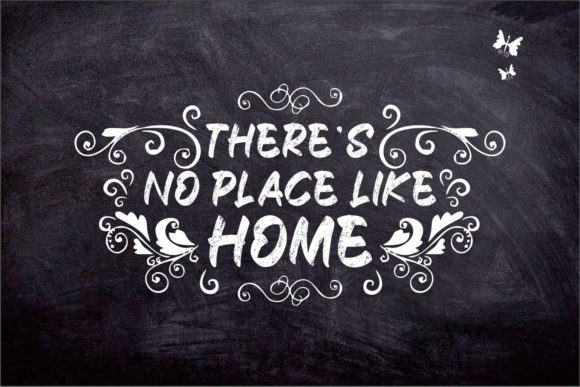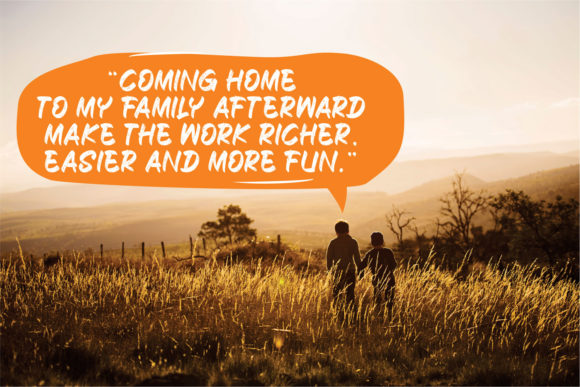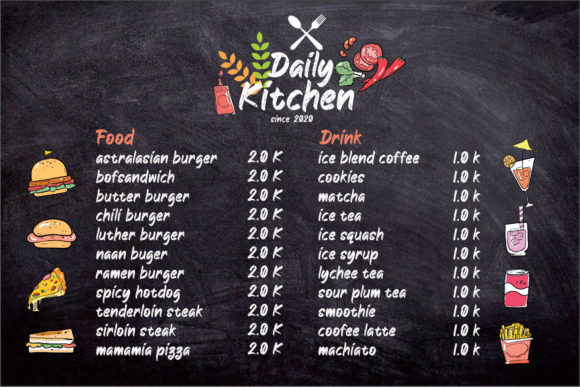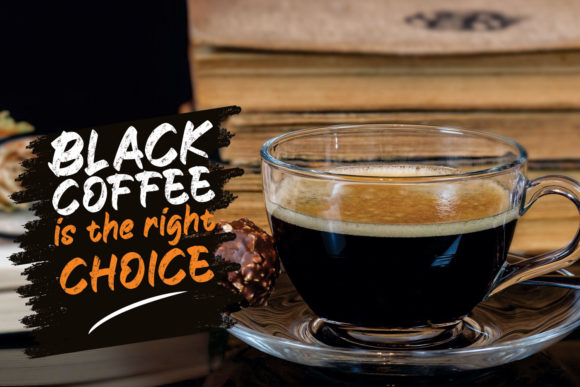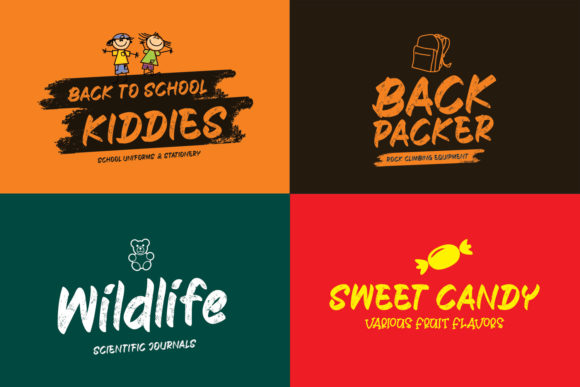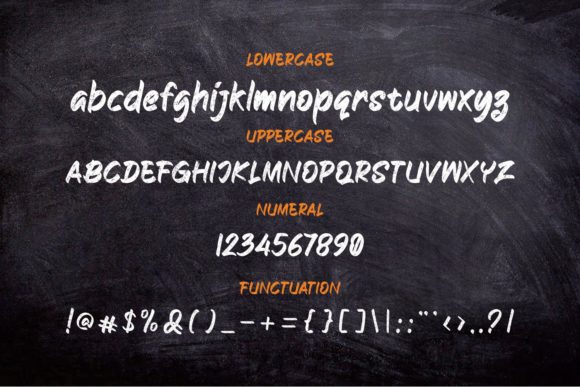
Discover the Timeless Charm of Blackboard Font: Elevate Your Designs with a Classic Handwritten Style
Are you a designer or crafter looking for a font that can add a touch of nostalgia and personality to your projects? Look no further than the Blackboard font! This classic handwritten font has been a staple in the design world for years, and its versatility and charm make it an excellent choice for a wide range of applications.
The Unique Characteristics of Blackboard Font
Blackboard font is a typeface that mimics the look of handwritten text on a blackboard. Its distinctive features include:
- Handwritten style: Blackboard font has a warm, organic feel that is reminiscent of handwritten text.
- Chalk-like texture: The font has a subtle texture that gives it a chalky appearance, as if it was written on a blackboard.
- Classic look: Blackboard font has a timeless quality that makes it suitable for a wide range of projects, from vintage-inspired designs to modern applications.
Why Blackboard Font is a Great Choice for Designers and Crafters
Blackboard font is an excellent choice for designers and crafters due to its versatility and legibility. Here are some reasons why:
- Legibility: Despite its handwritten nature, Blackboard font is surprisingly legible, making it suitable for use in a variety of contexts, from body text to headlines.
- Versatility: Blackboard font can be used in a wide range of projects, including posters, flyers, brochures, and digital graphics.
- Emotional connection: The font’s handwritten style and chalk-like texture evoke a sense of nostalgia and warmth, making it an excellent choice for designs that aim to create an emotional connection with the audience.
How to Use Blackboard Font Effectively in Your Designs
Blackboard font can be used in a variety of ways to add visual interest and personality to your designs. Here are some tips:
- Use it as a headline: Blackboard font makes an excellent headline font, especially when used on busy backgrounds or as a standalone element.
- Combine it with images: The font’s chalk-like texture and handwritten style make it an excellent choice for use in combination with images, especially those with a vintage or rustic feel.
- Experiment with colors: Blackboard font can be used in a variety of colors, from classic black and white to bold and bright hues.
Blackboard Font in Digital and Print Design
Blackboard font is a versatile typeface that can be used in both digital and print design. Here are some examples of how it can be used:
- Digital graphics: Blackboard font can be used in digital graphics, such as social media graphics, blog posts, and email newsletters.
- Print materials: The font is also suitable for use in print materials, such as posters, flyers, brochures, and business cards.
- Crafting and DIY projects: Blackboard font can be used in crafting and DIY projects, such as handmade cards, scrapbooking, and journaling.
Blackboard font is a classic handwritten font that can add a touch of personality and nostalgia to your designs. Its versatility, legibility, and charm make it an excellent choice for designers and crafters. Whether you’re looking to create a vintage-inspired design or a modern application, Blackboard font is sure to elevate your project and make it stand out.